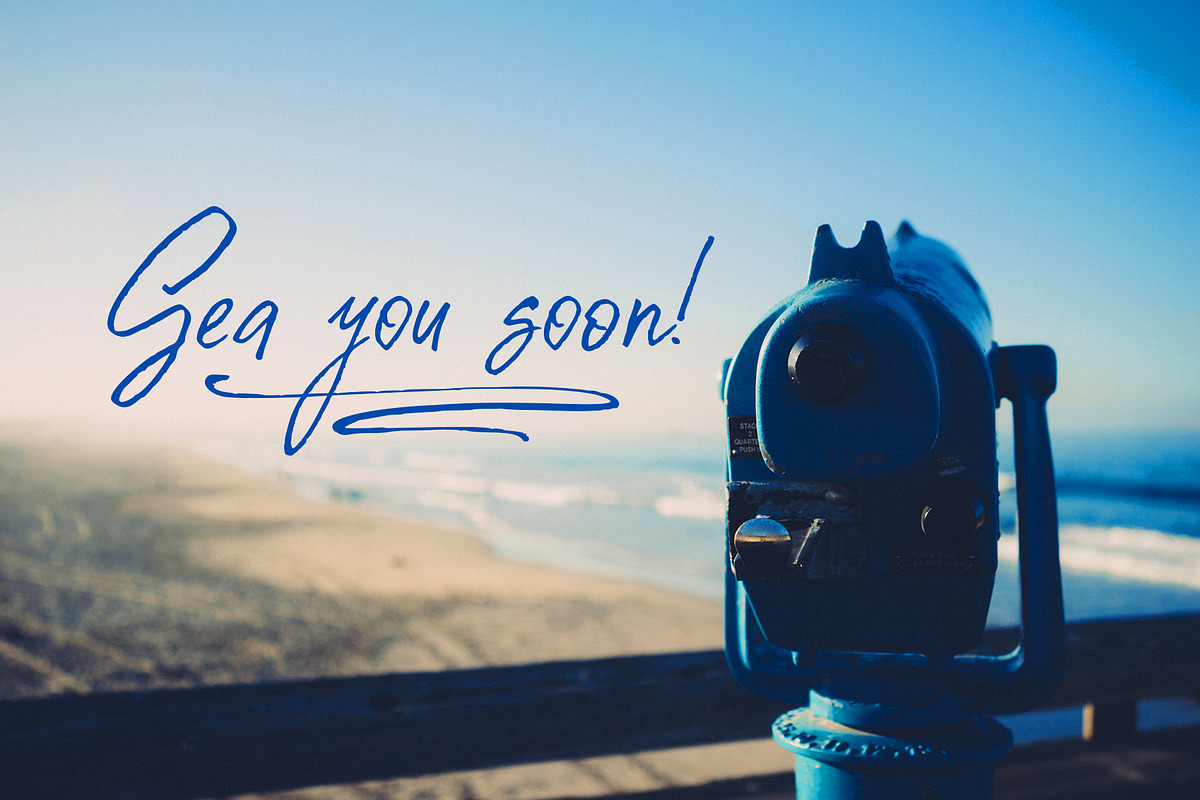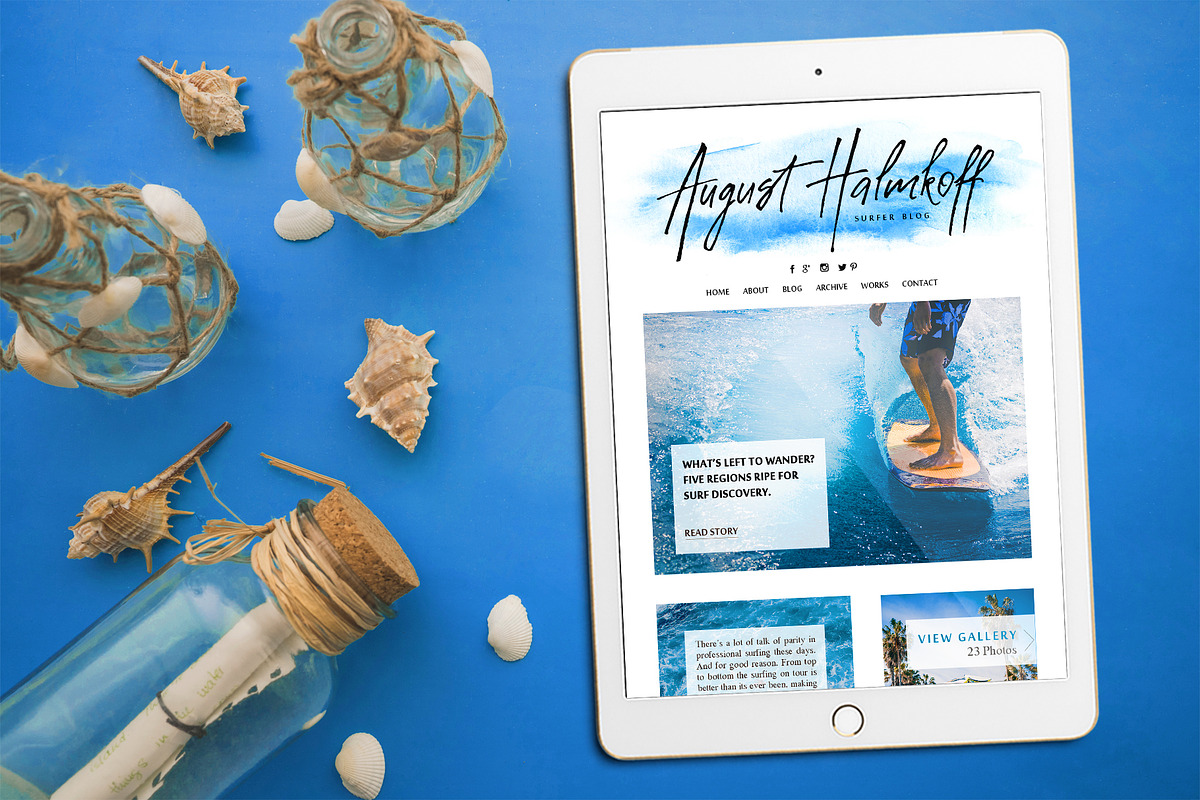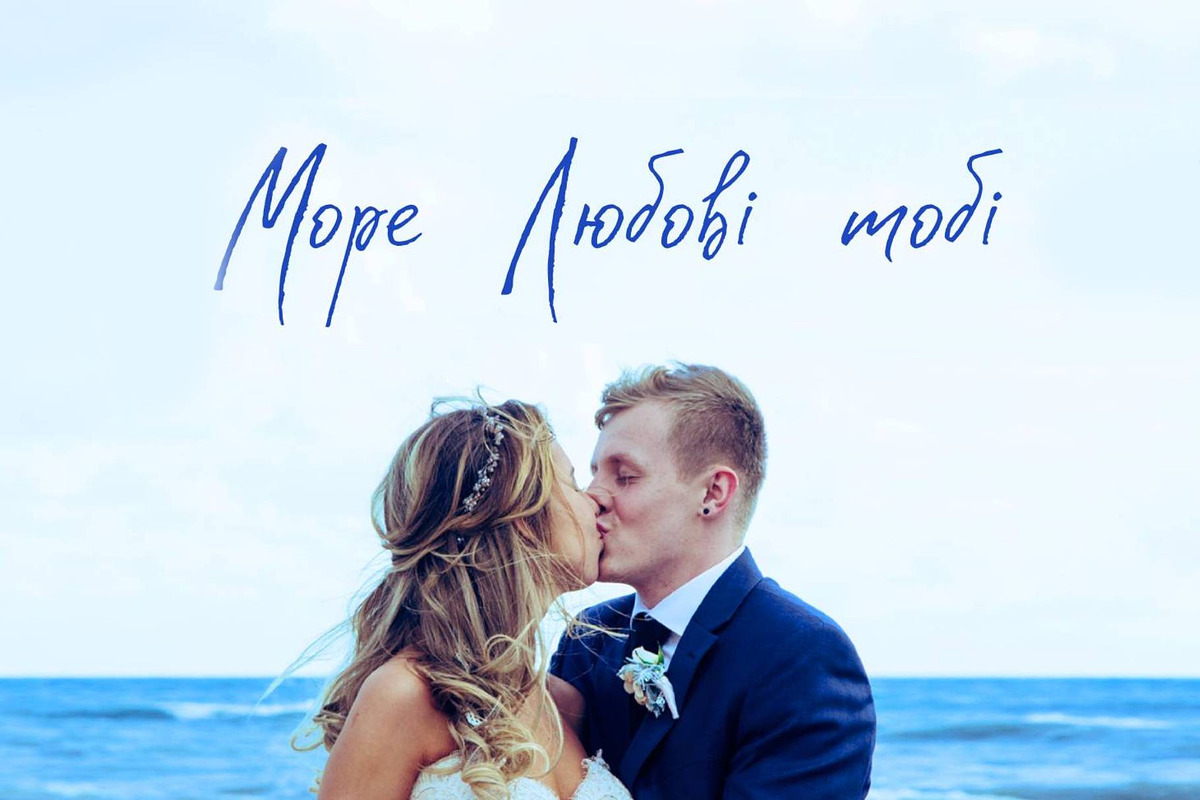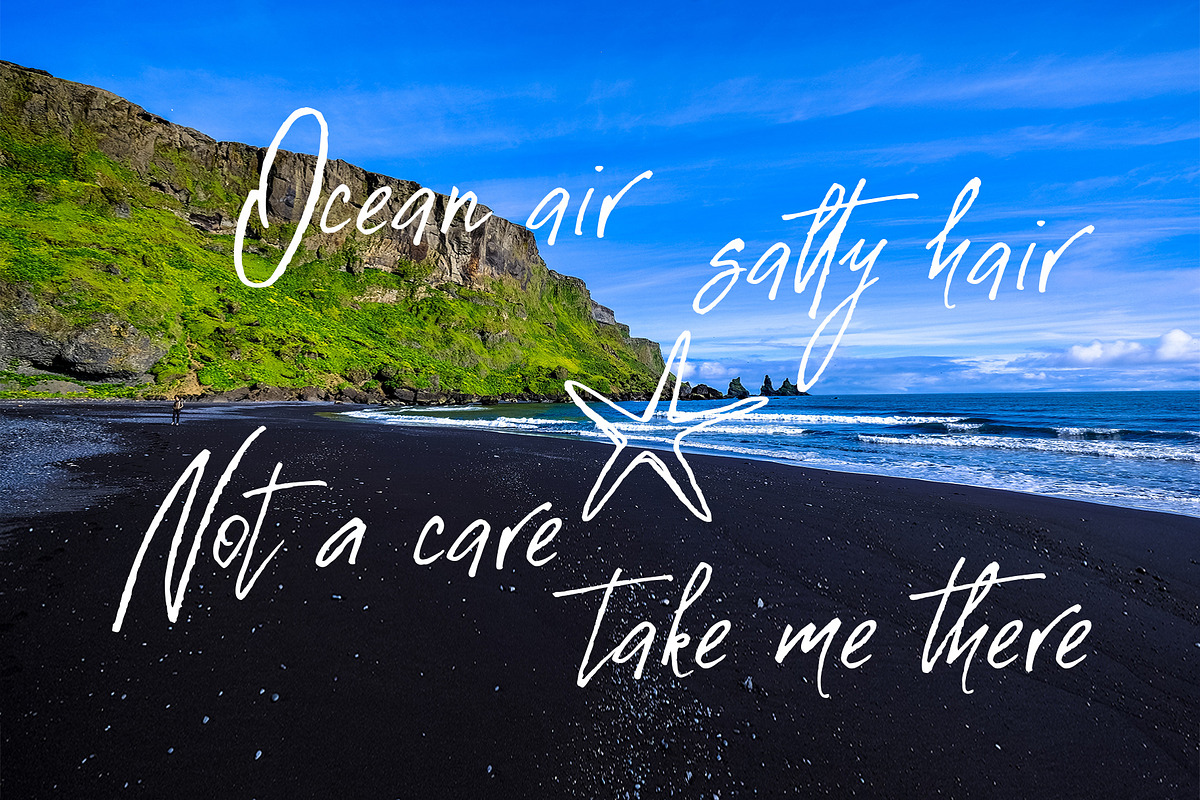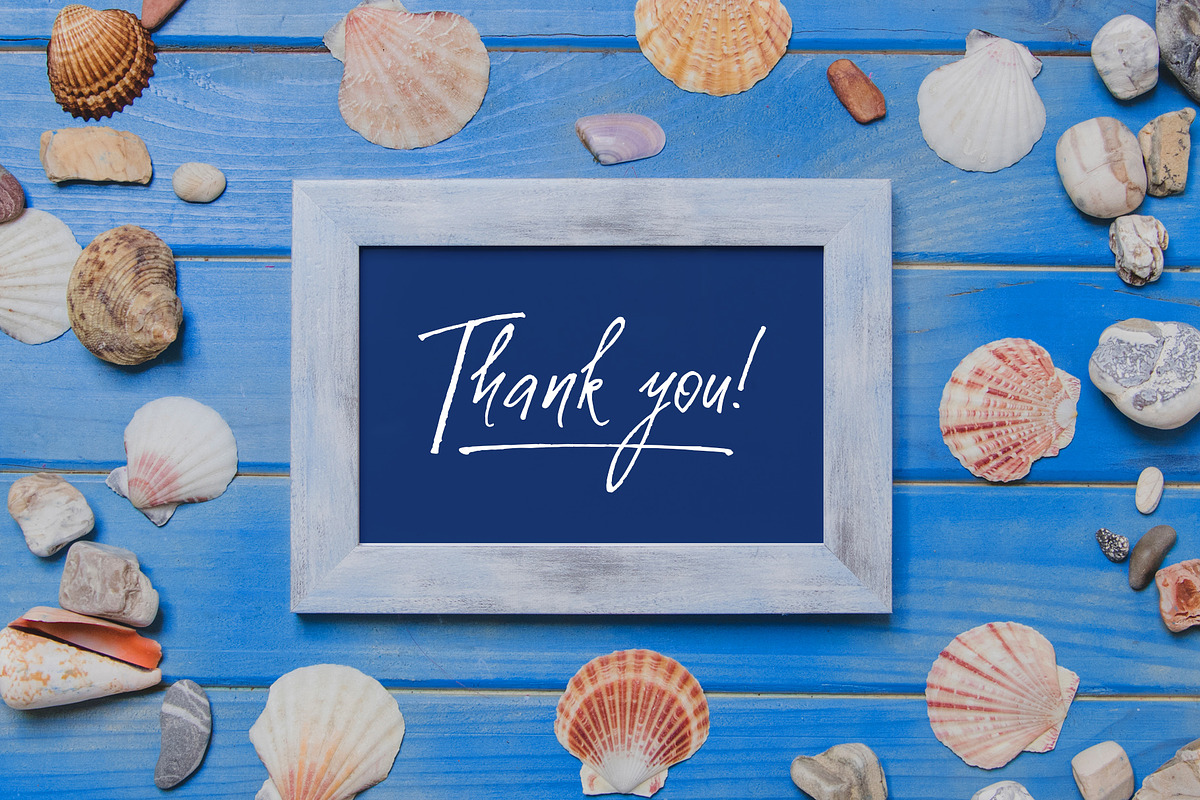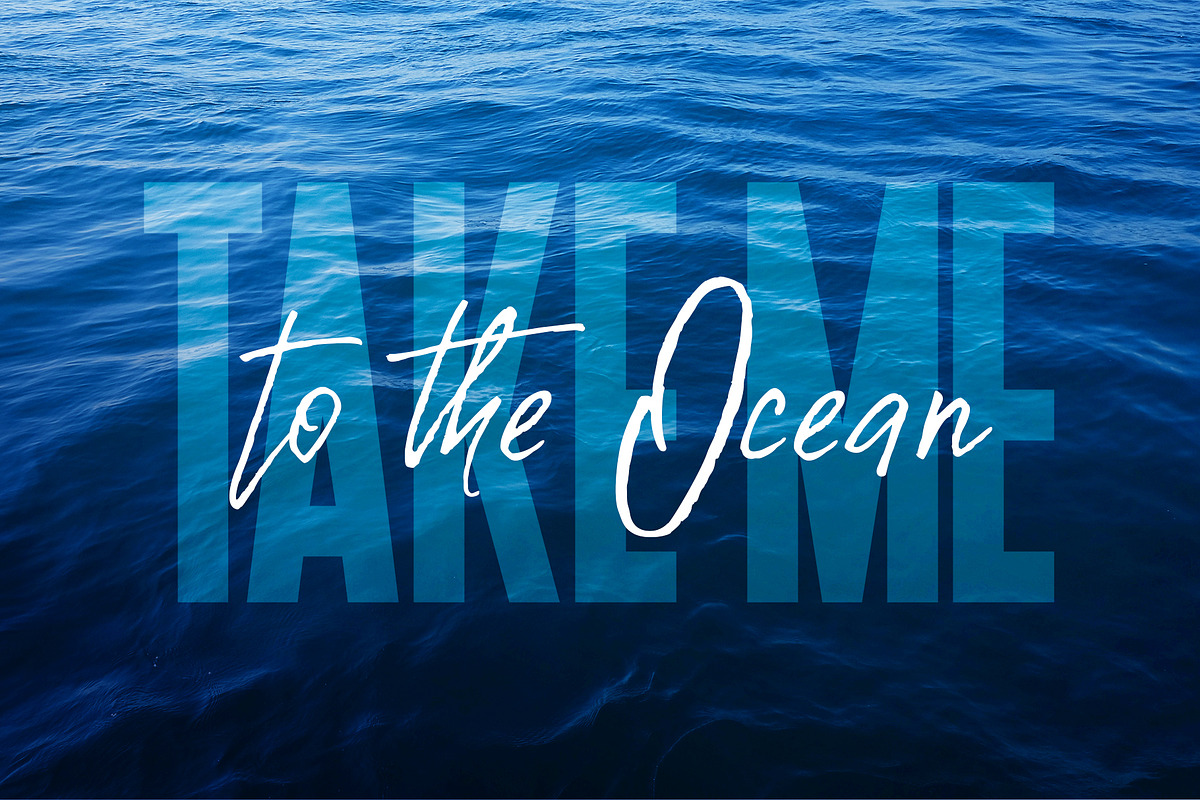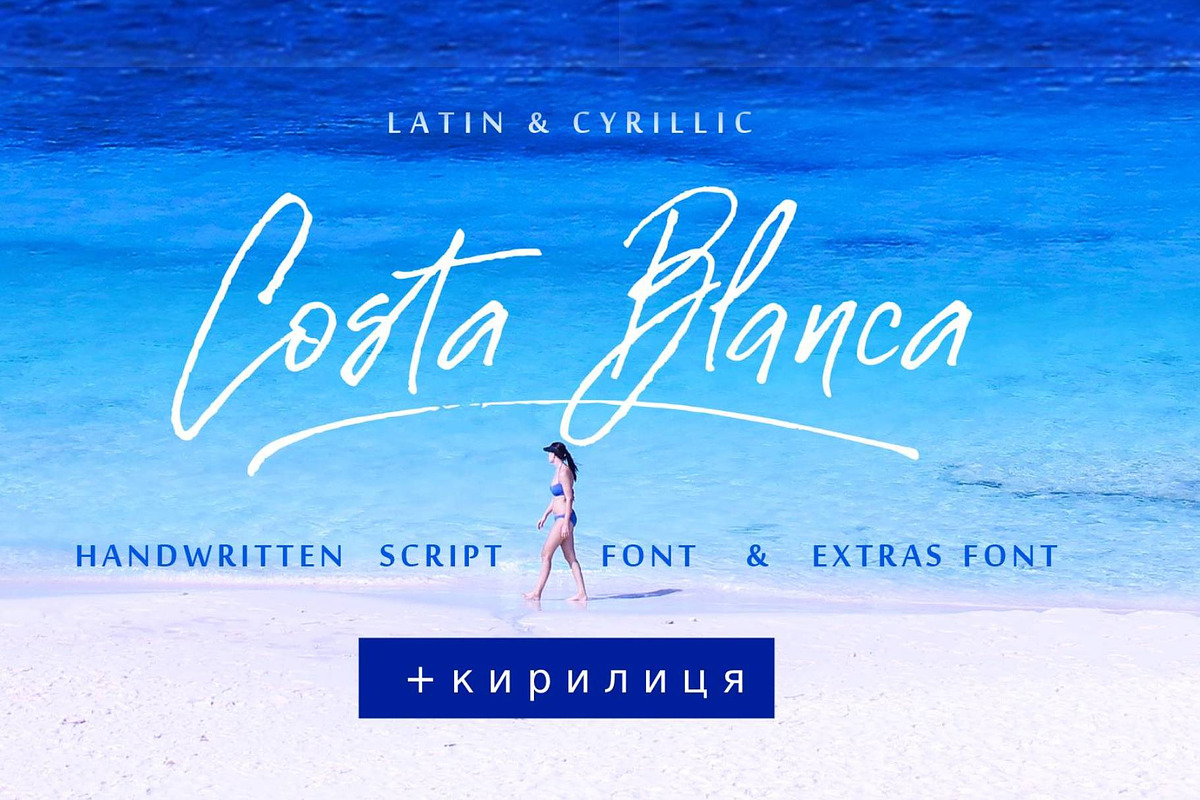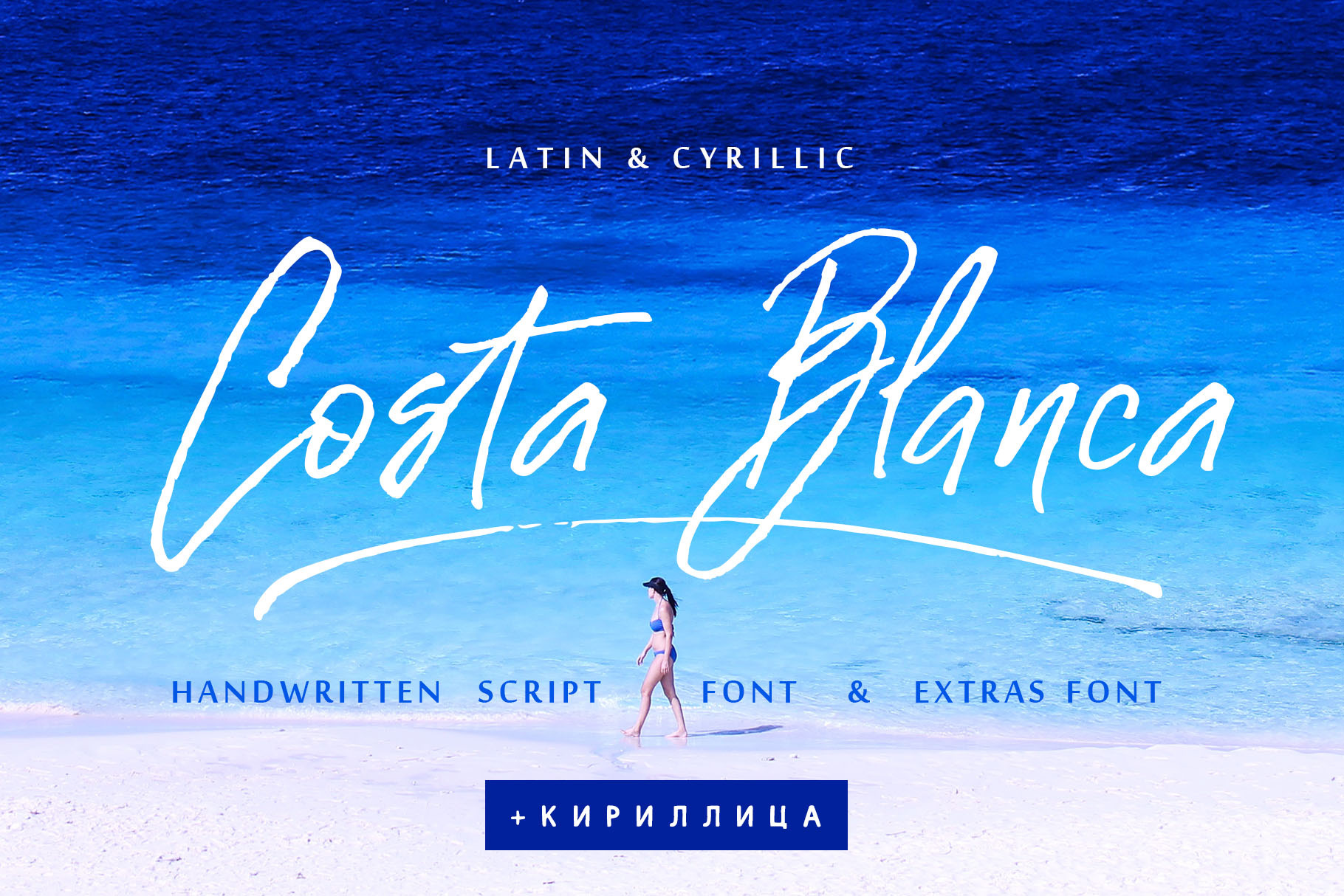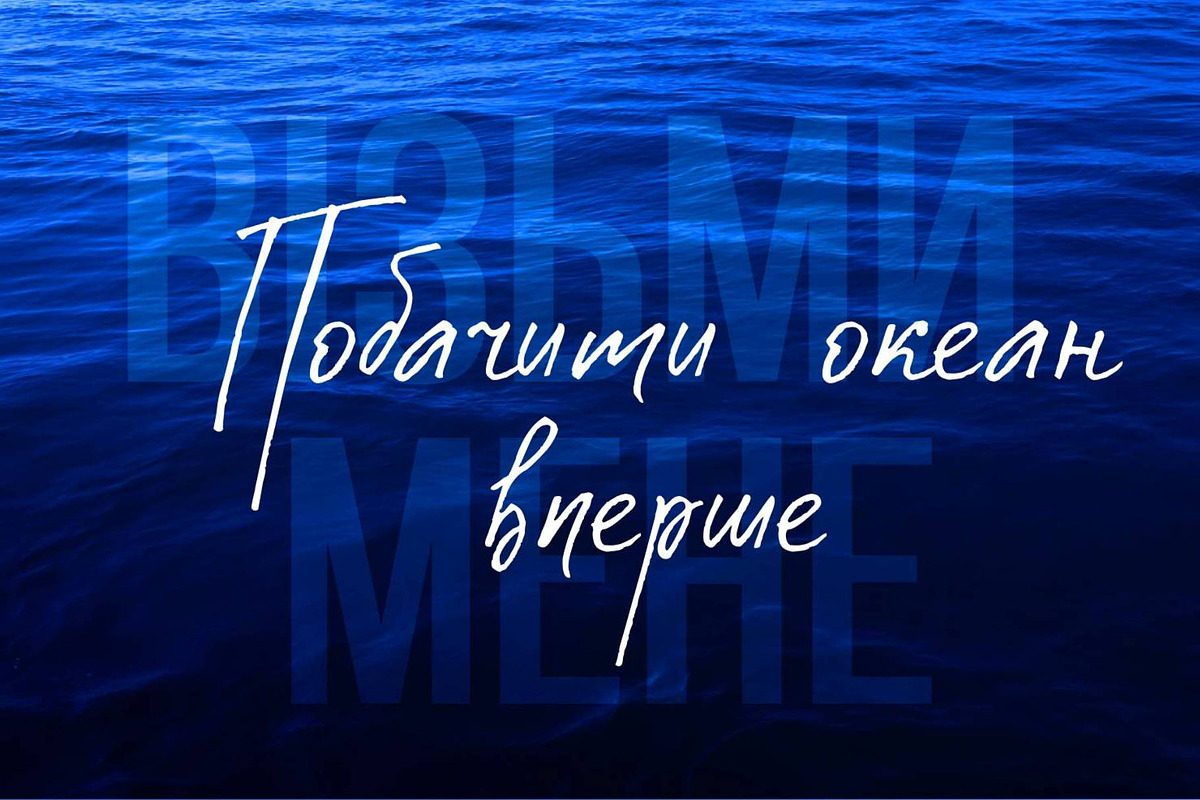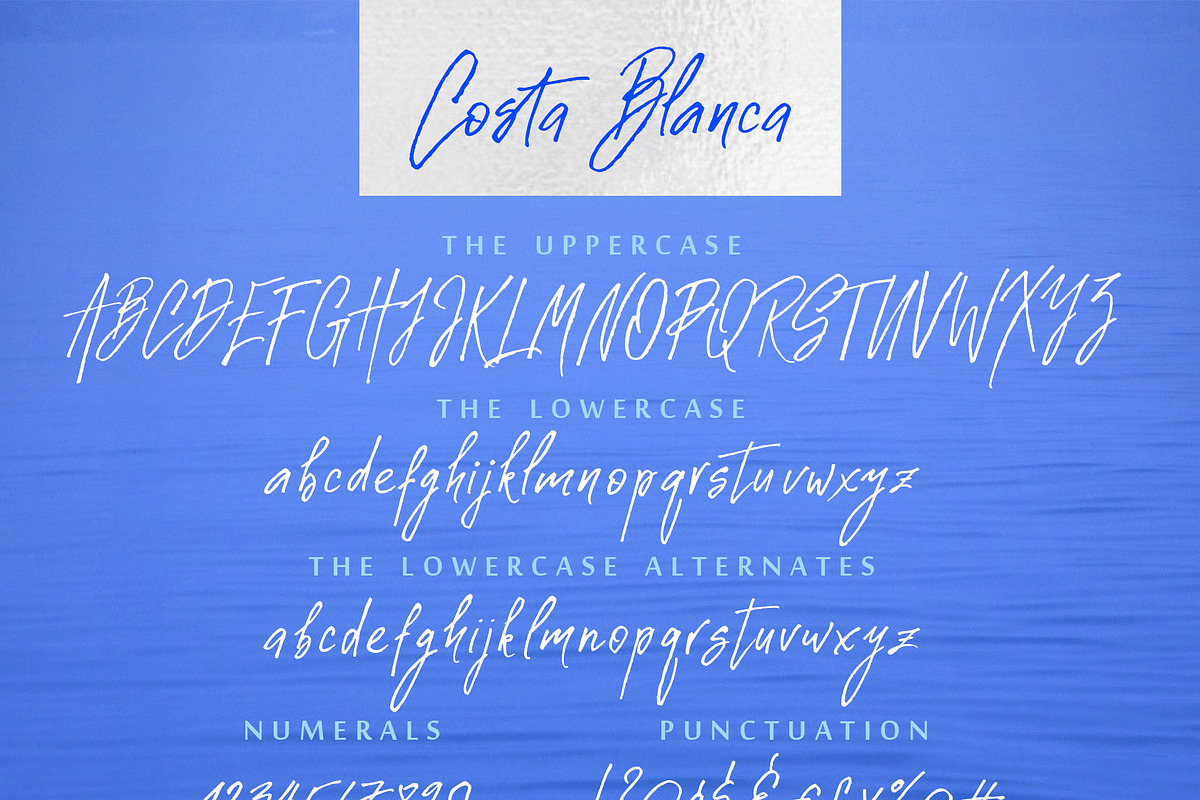
Costa Blanca Cyrillic textured font
Costa Blanca Cyrillic is a charming hand-drawn script font created using a thin cola pen, designed to bring an authentic, organic calligraphy look to your creative projects.
Featuring a full set of uppercase letters, two full sets of lowercase letters, and 36 versatile ligatures, this script allows you to easily achieve a realistic hand-lettered aesthetic. By utilizing alternate lowercase characters and double-letter ligatures, you can effortlessly mimic natural handwriting. Additionally, the Cyrillic character set includes its own uppercase and lowercase letters along with 17 ligatures for seamless multilingual design.
To make your creations even more unique, the font includes a dedicated companion style featuring over 60 hand-drawn illustrations and elements. A distinct symbol is automatically assigned to every standard uppercase and lowercase character, as well as numbers 0-9, allowing you to simply type the desired letter without needing complex graphics software.
With robust multilingual support covering 33 languages—including Afrikaans, Albanian, Basque, Bosnian, Catalan, Danish, Dutch, English, Estonian, Faroese, Filipino, Finnish, French, Galician, Indonesian, Irish, Italian, Malay, Norwegian Bokmål, Portuguese, Slovenian, Spanish, Swahili, Swedish, Turkish, Welsh, and Zulu—Costa Blanca is ready for global projects. Cyrillic Glyphs: Bulgarian, Ukrainian, Mongolian, Kazakh, Russian, and Belarusian languages.